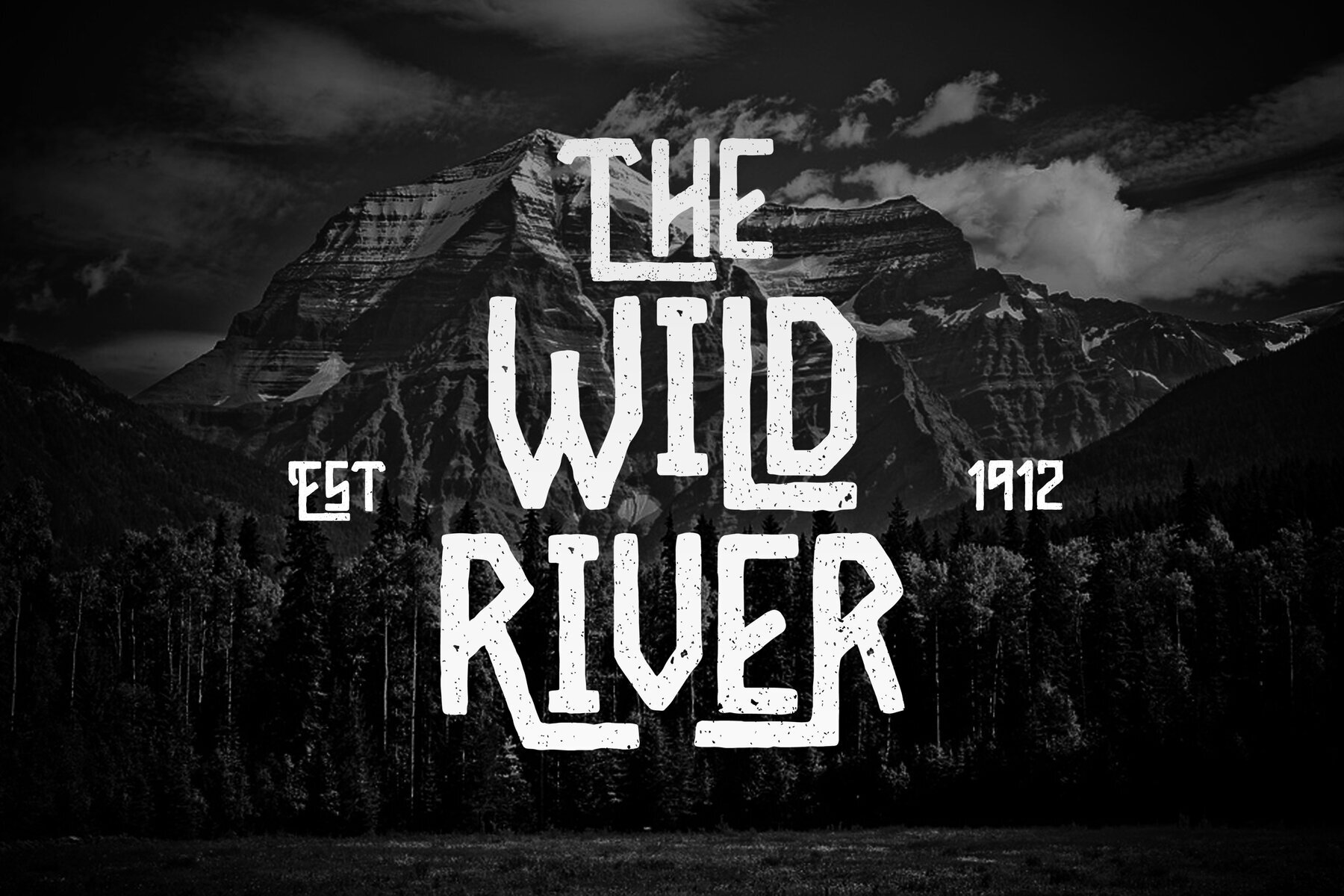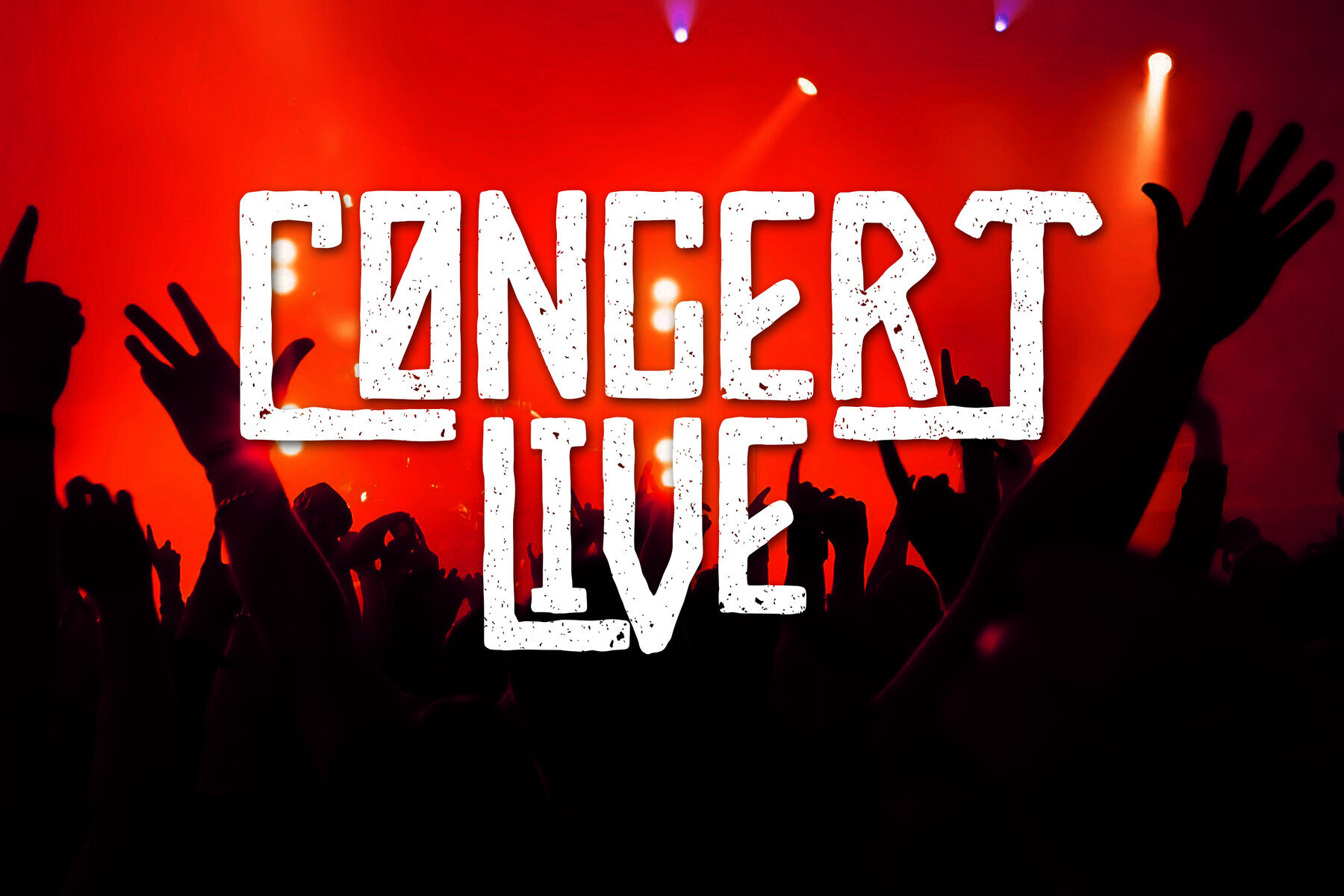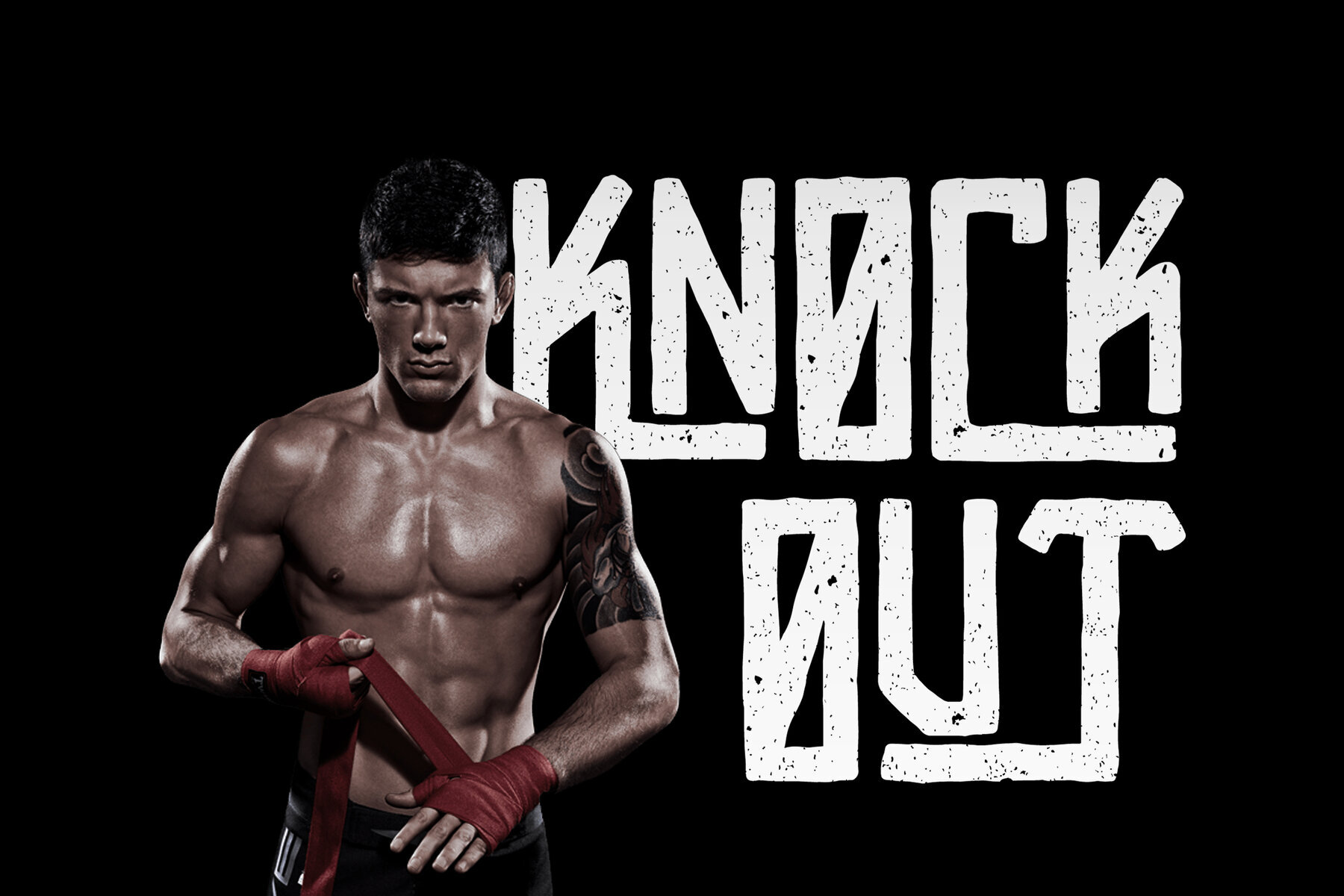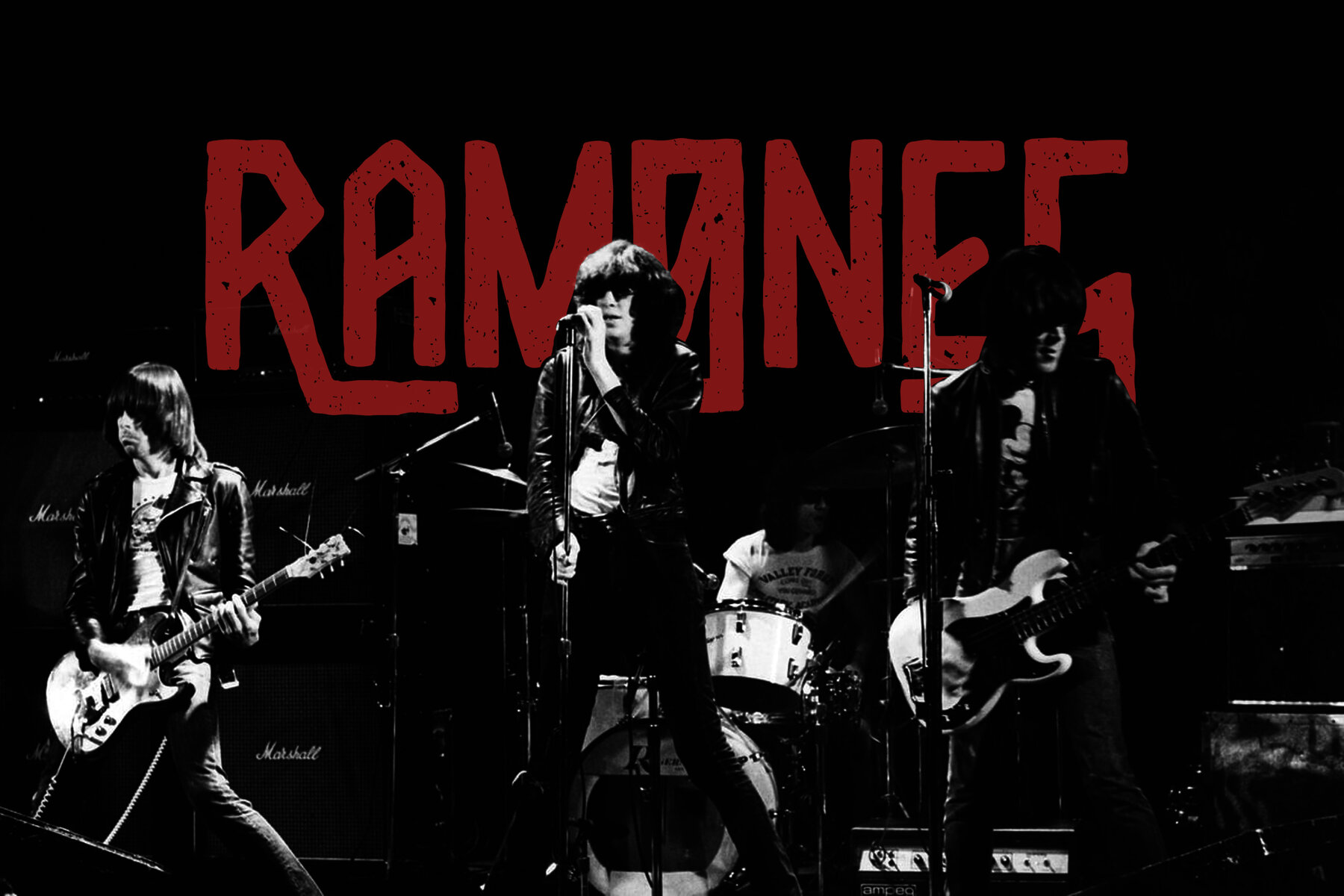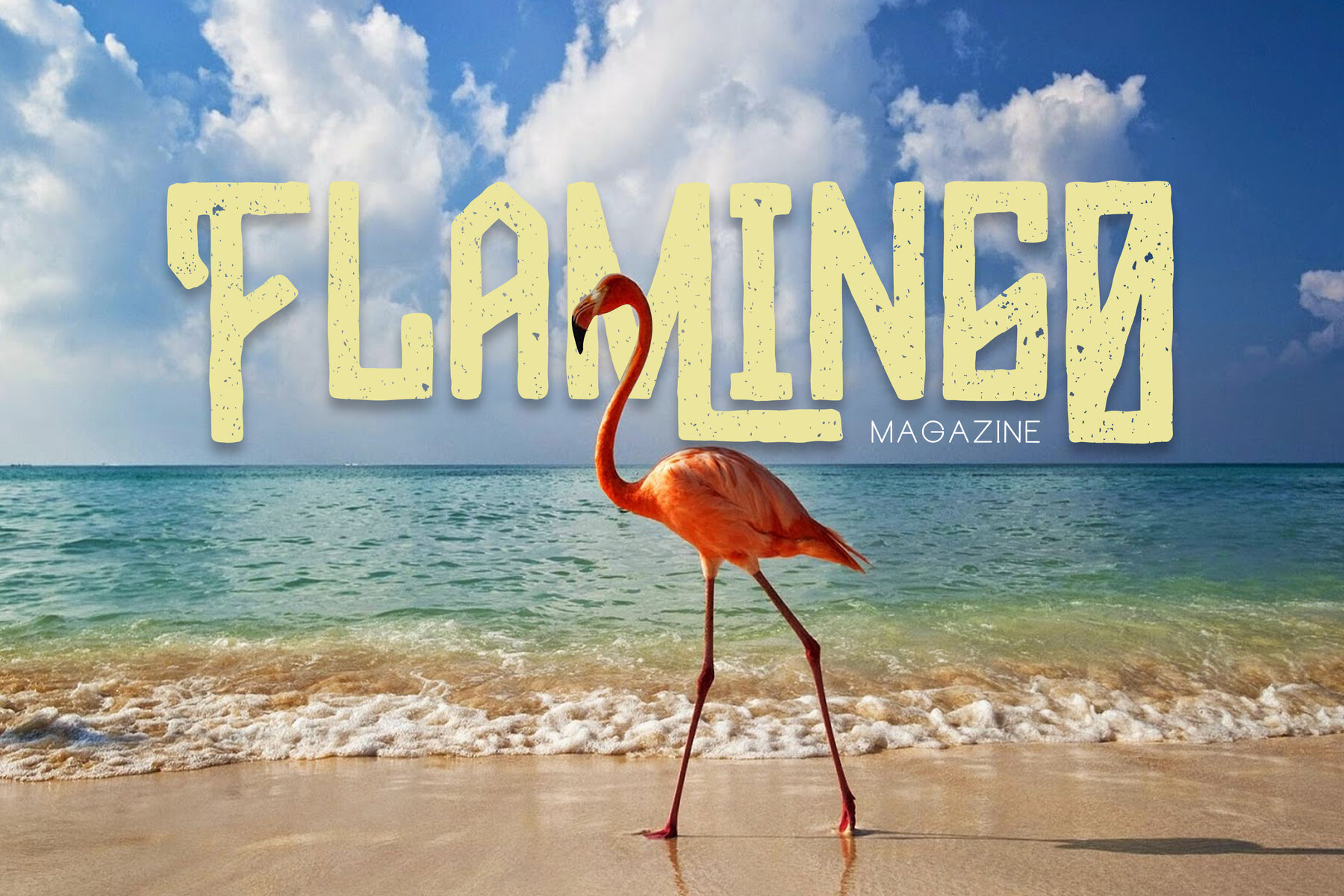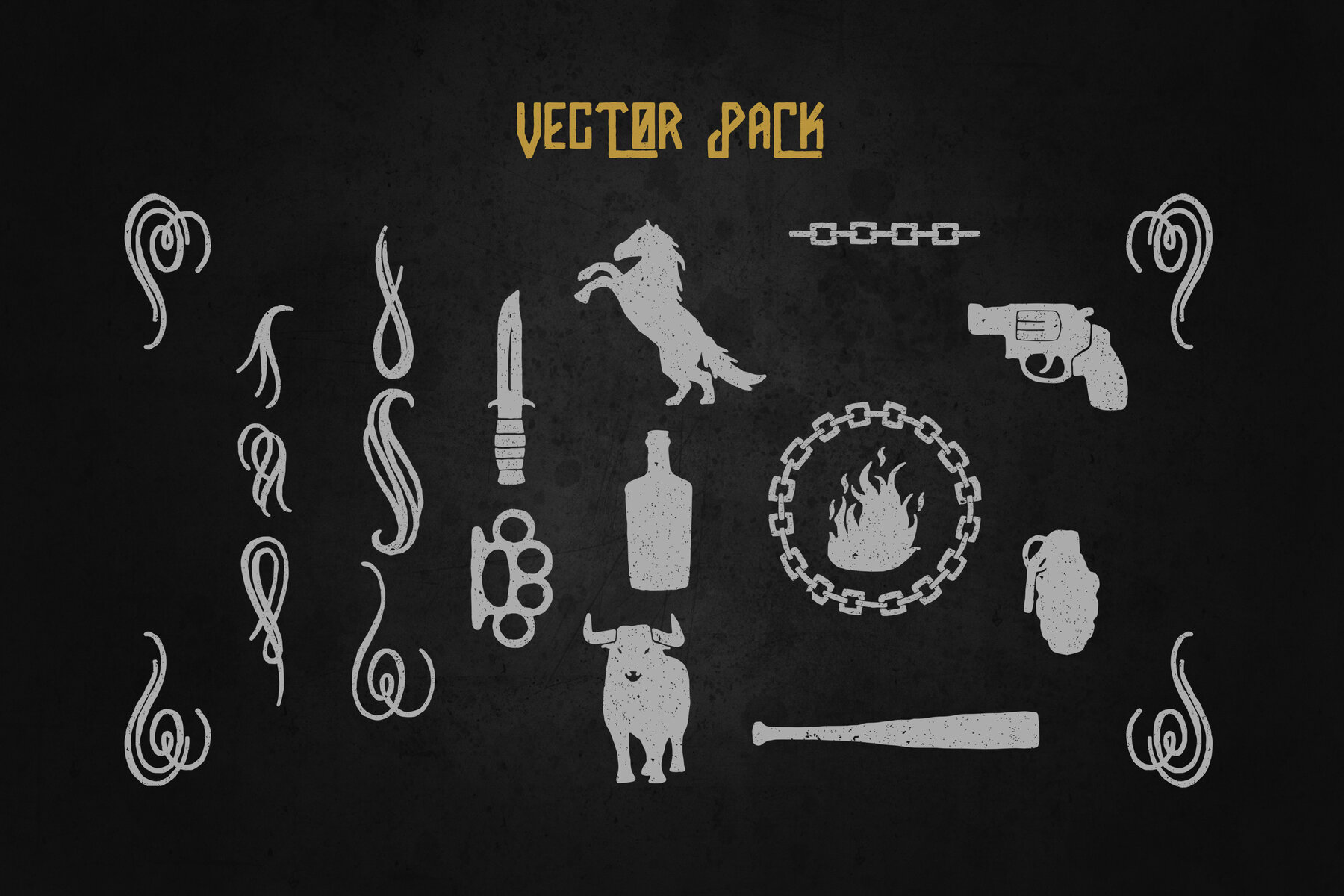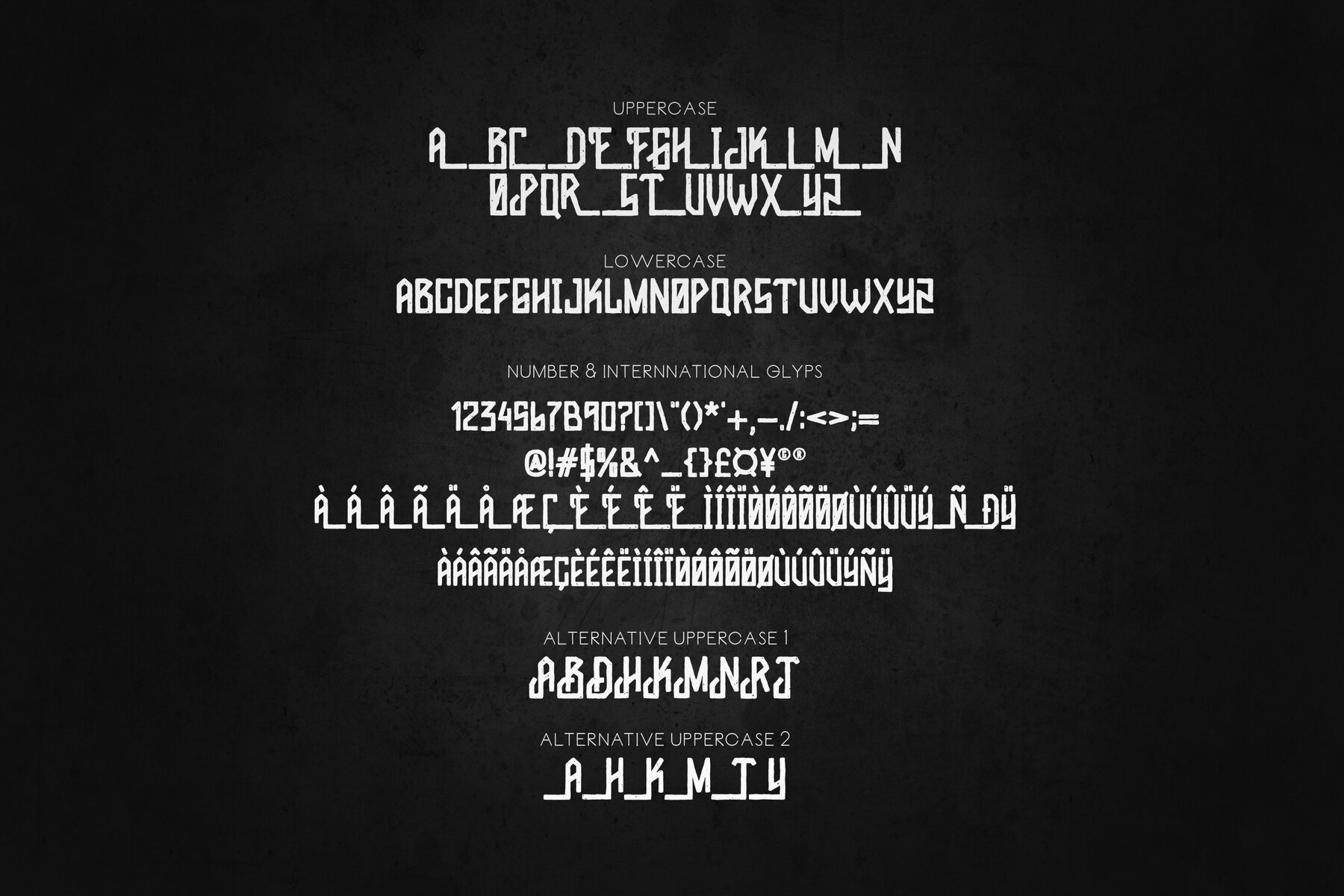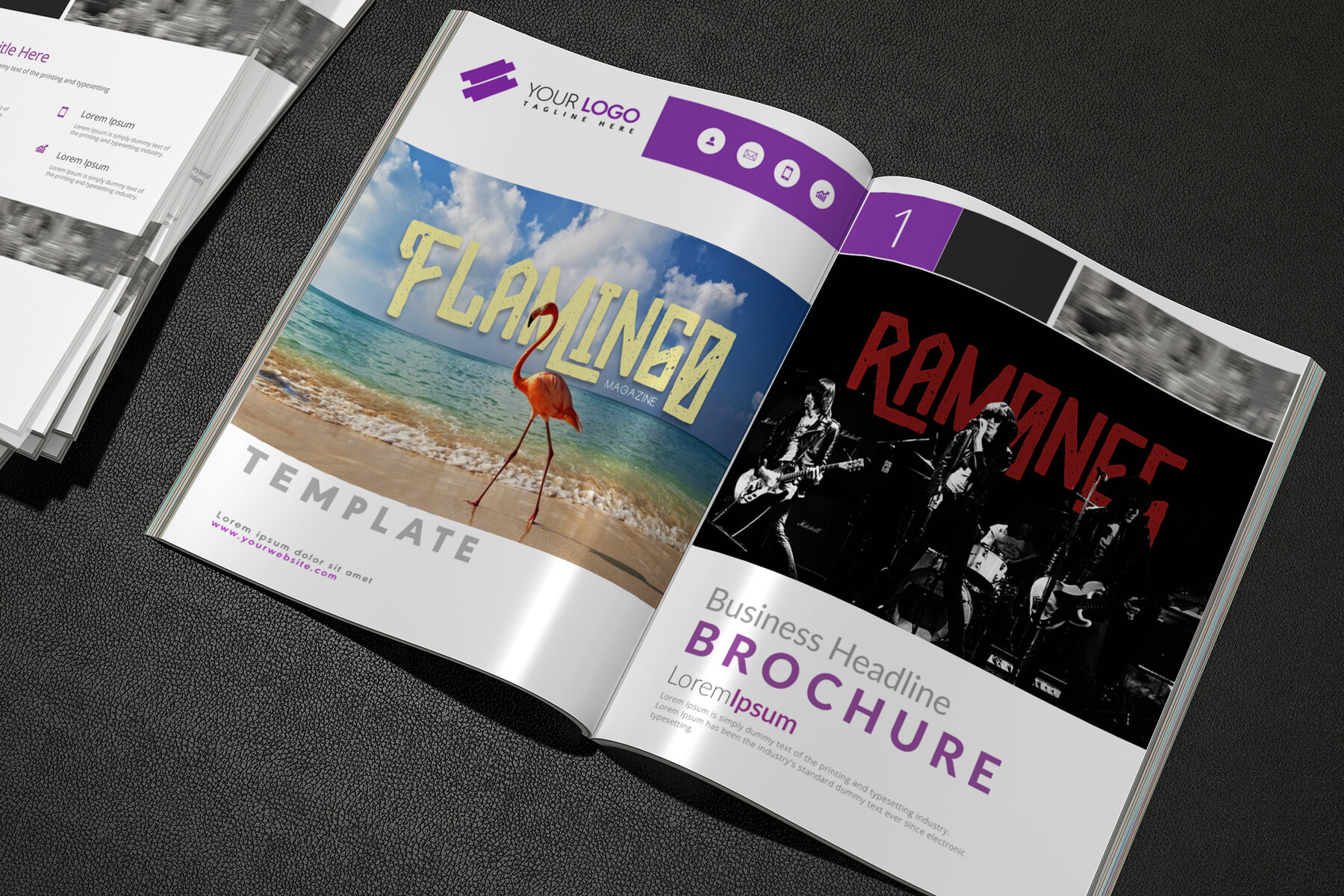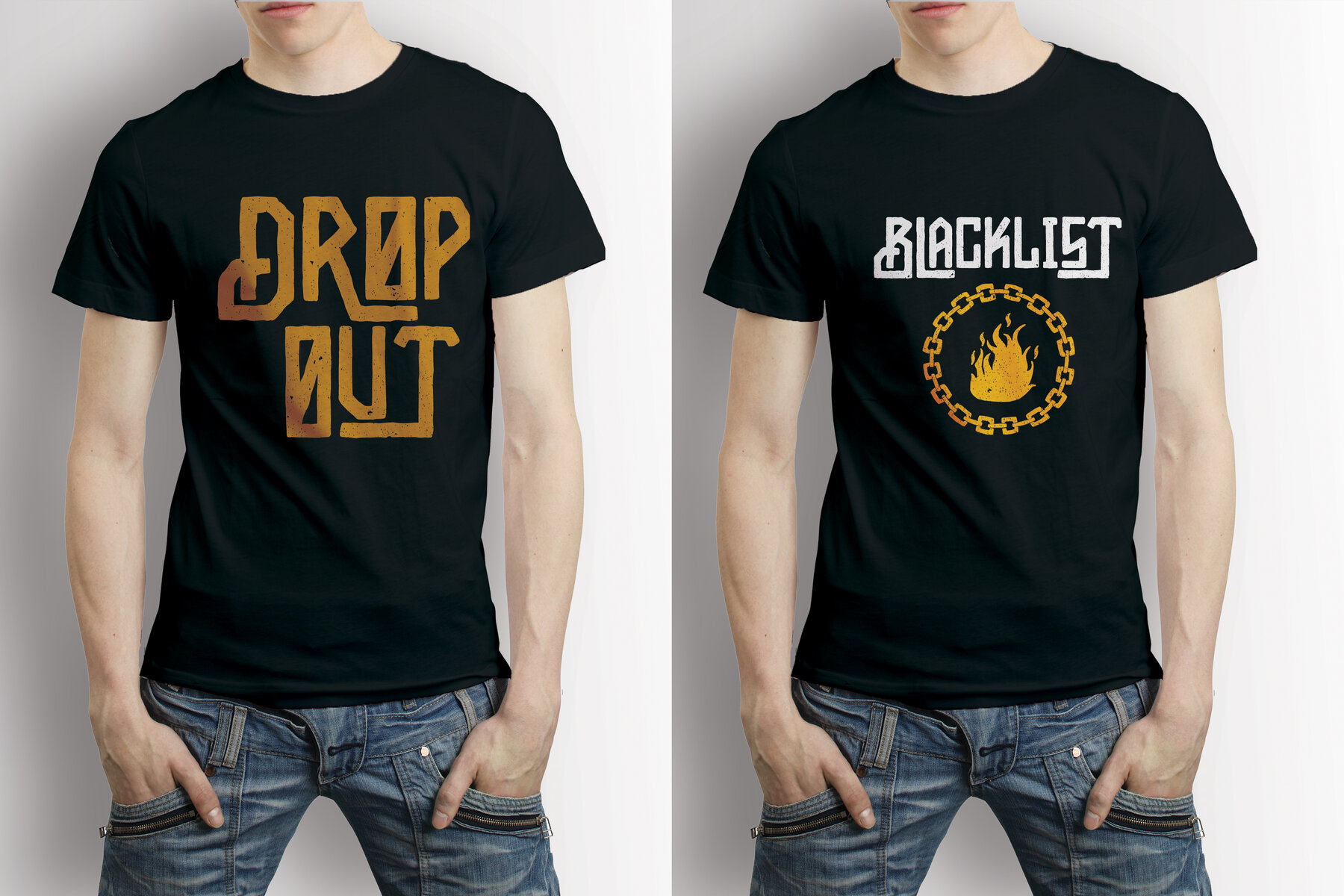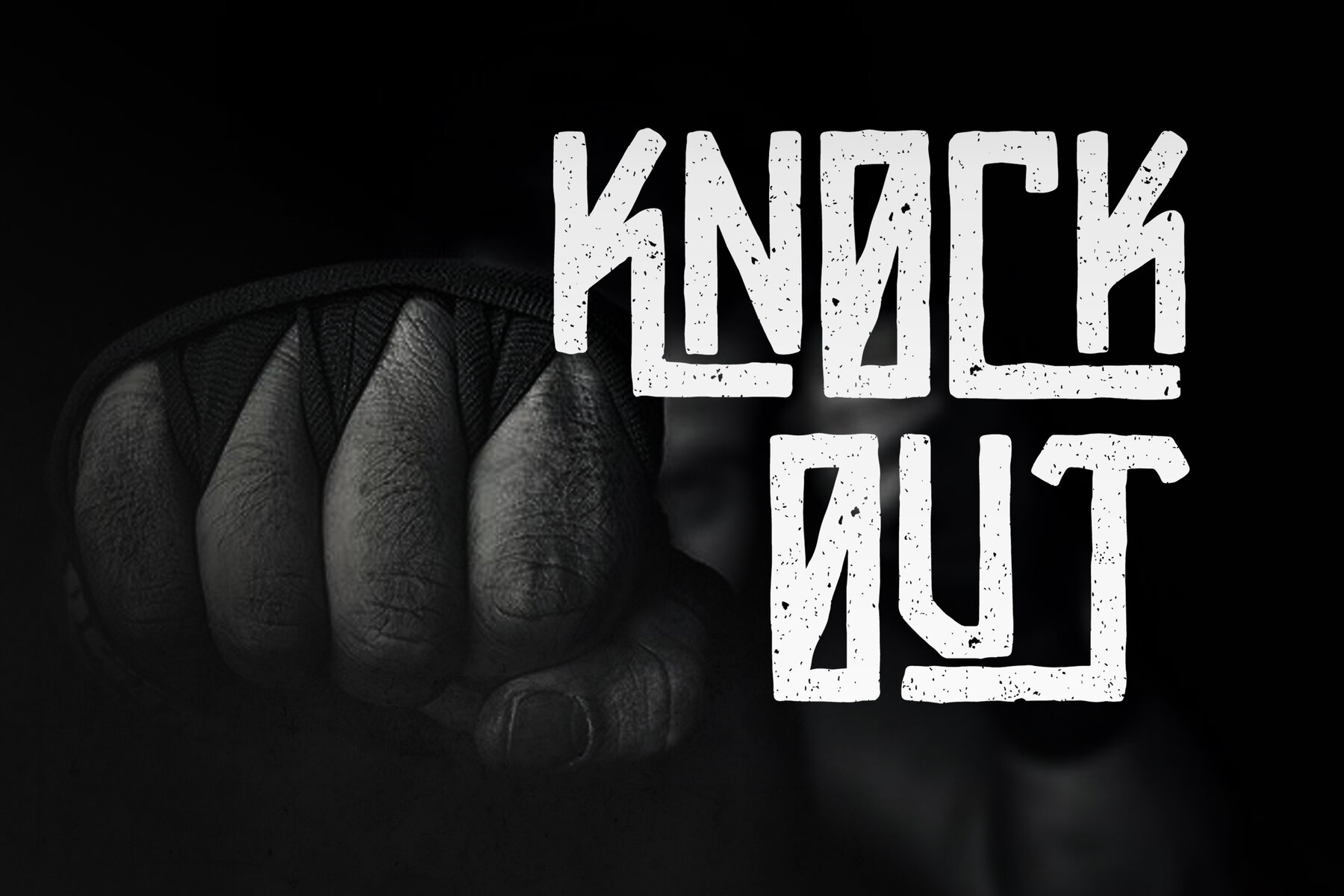
Wild River Font
Wild River Regular
Wild River offers a compelling choice for creatives seeking a harmonious blend of fluidity and strength in their projects. Its adaptable aesthetics make it an ideal candidate for diverse applications, from poster design and book covers to fashion campaigns and branding initiatives.Wild River: A Dynamic Typeface for Versatile Design